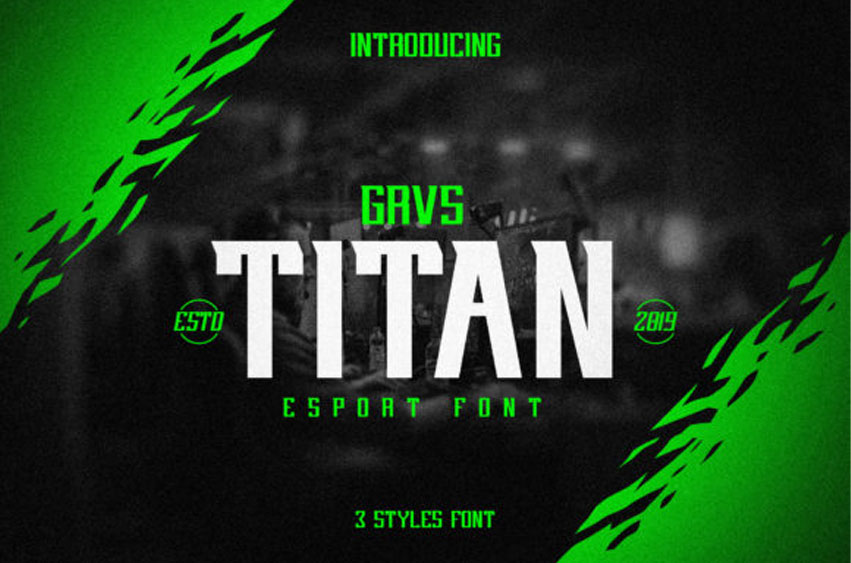
Titan Font
Titan Font is a bold and incredibly distinct display font.
It works great on a variety of sporting or racing designs, so add it confidently, and you will love the results.